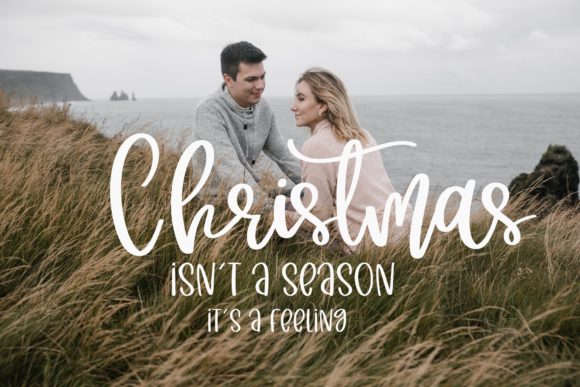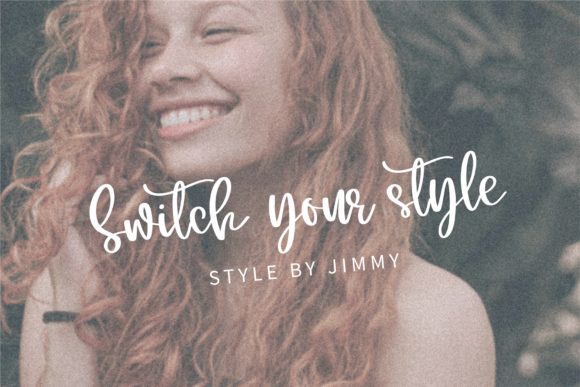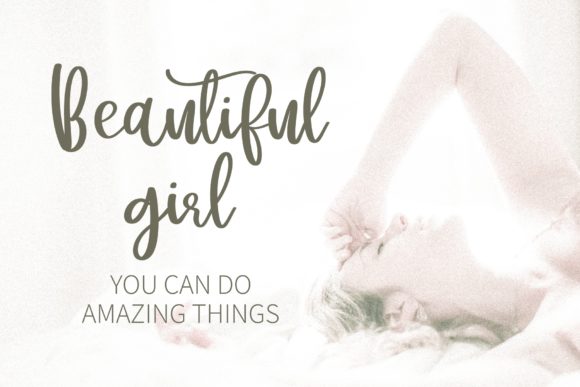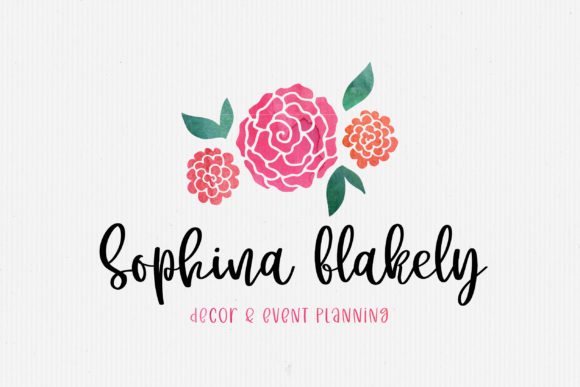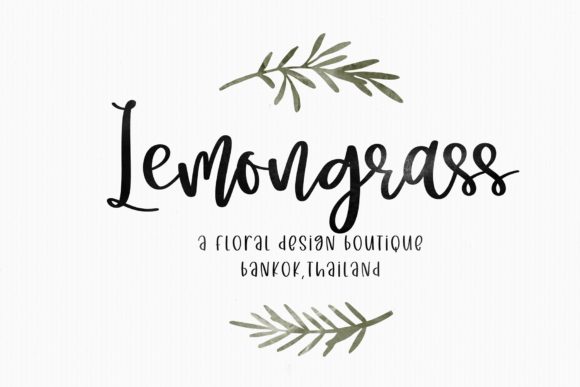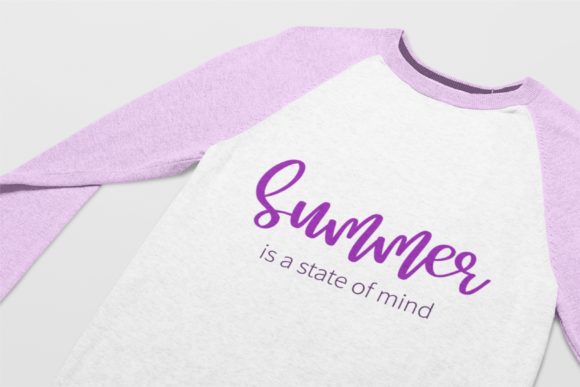
Discover the Sweet Charm of Babygirl Font
As a designer, have you ever found yourself in a creative flow, pouring your heart and soul into a project, only to be stuck on the perfect font to bring it all together? You’ve scrolled through endless options, trying to find that one special something that will make your design pop. And then, like a breath of fresh air, you stumble upon the Babygirl Font – a delicate and elegant handwritten font that will leave you smitten.
| 👤 Author | BitongType |
This beautiful font is more than just a pretty face; it’s a versatile tool that can add a touch of sophistication and whimsy to any design. Whether you’re creating a romantic wedding invitation, a charming blog post, or a stylish social media graphic, the Babygirl Font is sure to be a valuable addition to your design toolkit.
Babygirl Font Key Features
- Font Family: Babygirl Font is a script font designed to resemble handwriting.
- Unique Characteristics: The Babygirl Font features a playful, cursive design with swashes and flourishes that give it a feminine and elegant touch.
Babygirl Font Review
I recently had the chance to work with the Babygirl Font, and I must say it’s a unique and interesting addition to any design project. Here’s my honest review.
- Playful and whimsical feel: The Babygirl Font has a distinct, youthful vibe that’s perfect for designs targeting a younger audience.
- Cursive and script variations: The font offers several script and cursive styles that add a touch of elegance and sophistication.
- Customizable: Babygirl Font is highly customizable, allowing you to adjust the font size, weight, and spacing to suit your design needs.
- Legibility issues: At smaller font sizes, the Babygirl Font can become difficult to read, which may be a concern for designs requiring clear typography.
- Limited language support: Babygirl Font may not be optimized for languages with complex scripts or non-Latin alphabets.
- Overuse potential: The font’s playful nature can be overwhelming if overused, so it’s essential to balance its use with other typography elements.
Overall, I think the Babygirl Font is a great choice for projects that require a youthful, whimsical feel. However, it’s crucial to consider its limitations and use it thoughtfully to avoid potential legibility issues and overuse.
Tips for Getting the Most Out of Babygirl Font
Use Babygirl Font for feminine and playful designs, such as invitations, birthday cards, and social media graphics.
Combine Babygirl Font with other playful fonts or graphics to create a cohesive and eye-catching design.
Babygirl Font is commonly used for:
Invitations and party decorations
Birthday cards and gift tags
Social media graphics and
Alternatives to Babygirl Font
Great Vibes is a beautiful, elegant script font perfect for creating a sophisticated and romantic atmosphere. It’s ideal for wedding invitations, love letters, and any other design that requires a touch of whimsy and charm. Compared to Babygirl Font, Great Vibes has a more refined and polished look, making it suitable for high-end designs.
Alex Brush is a modern script font that exudes elegance and sophistication. It’s perfect for designs that require a touch of luxury and refinement. Compared to Babygirl Font, Alex Brush has a more contemporary look and feel, making it suitable for modern and minimalist designs.